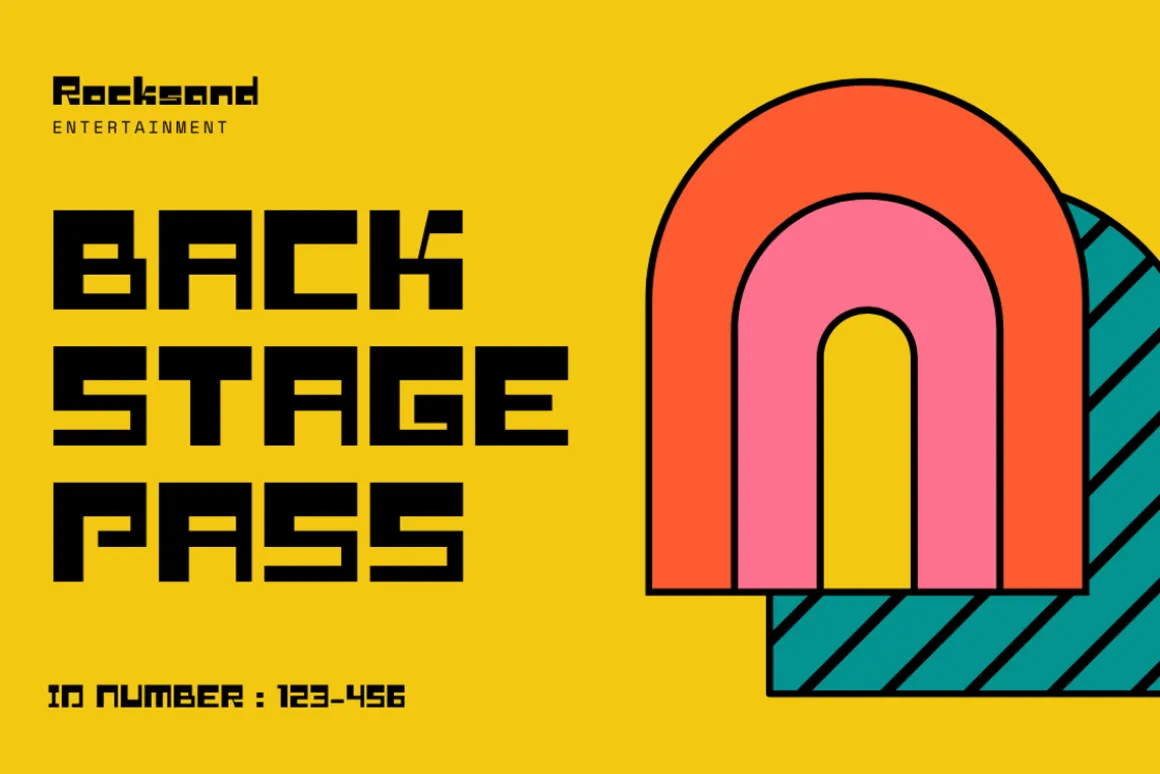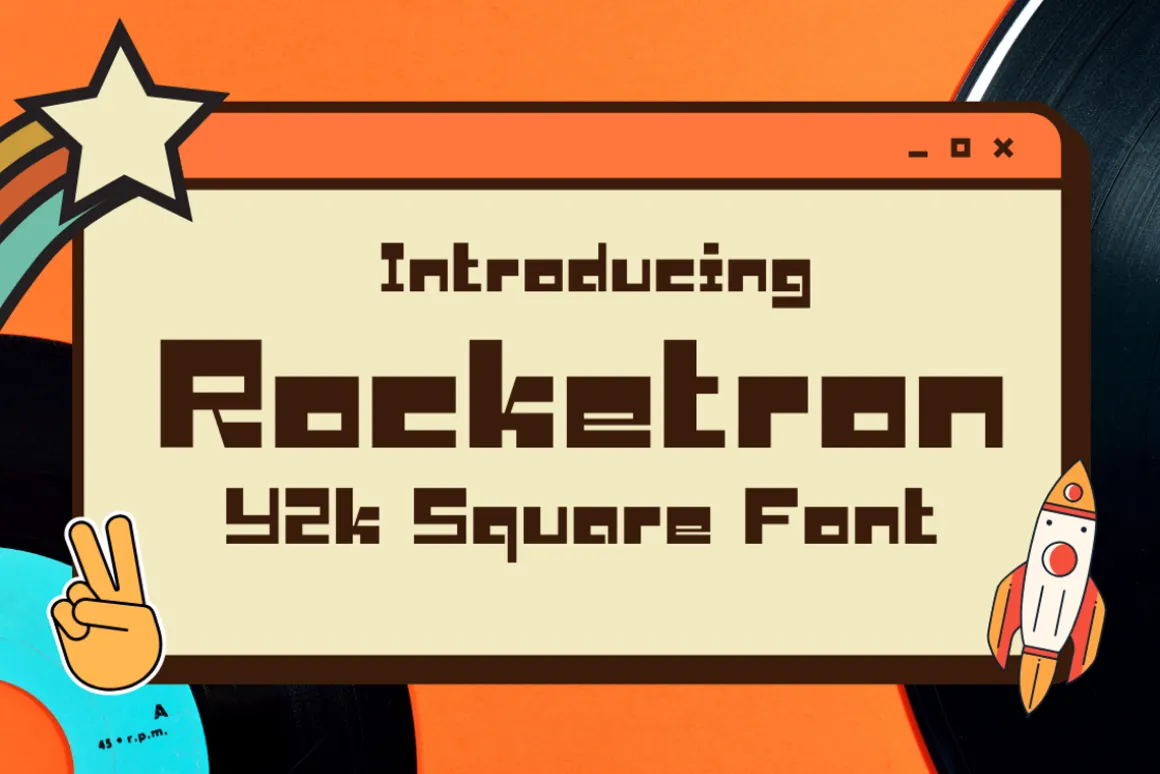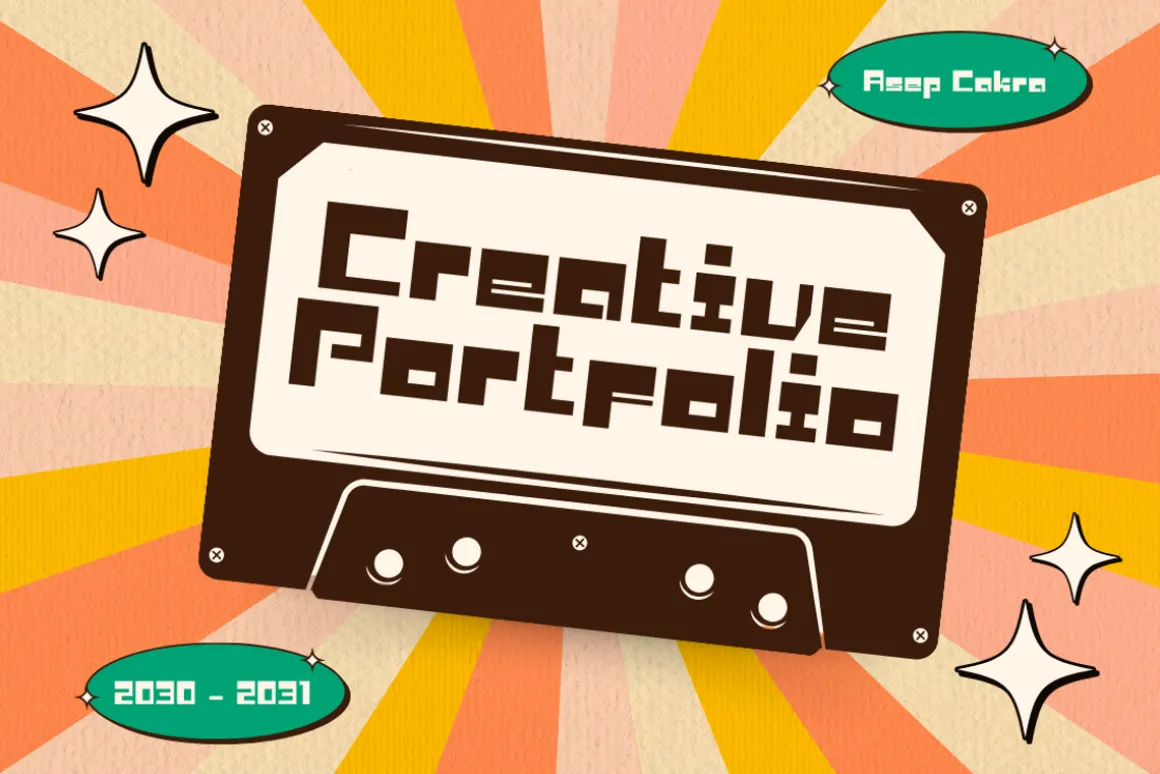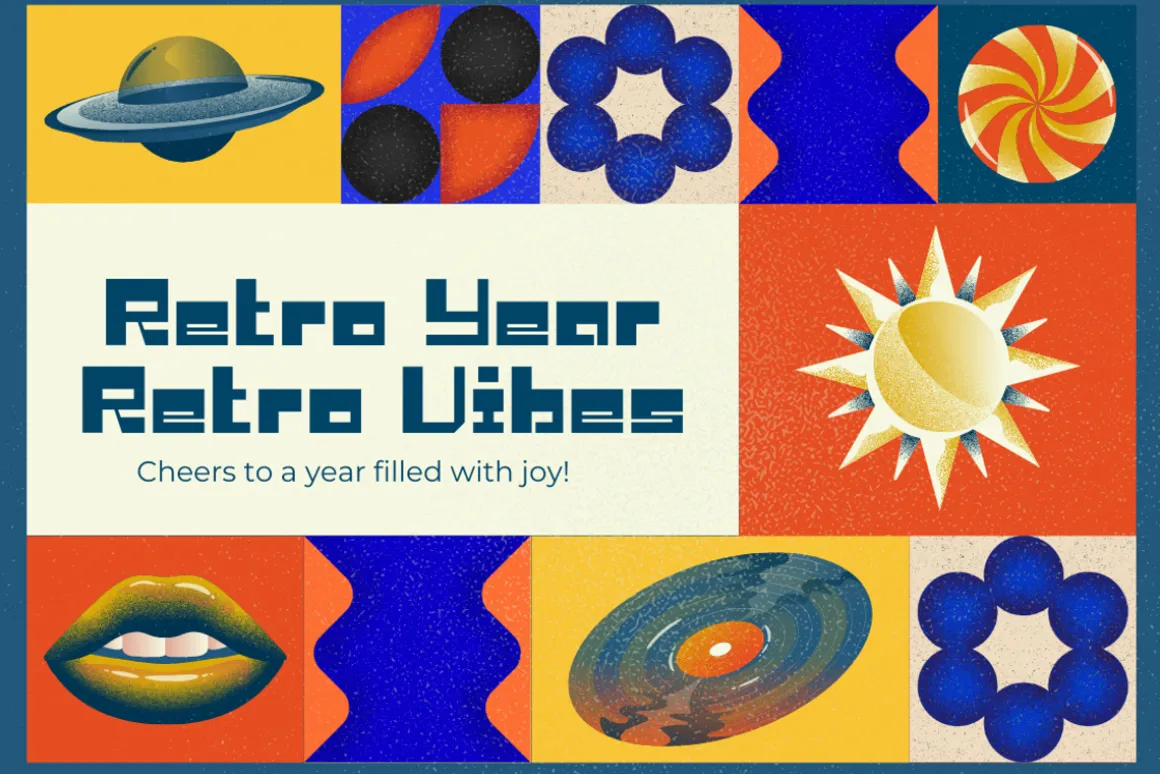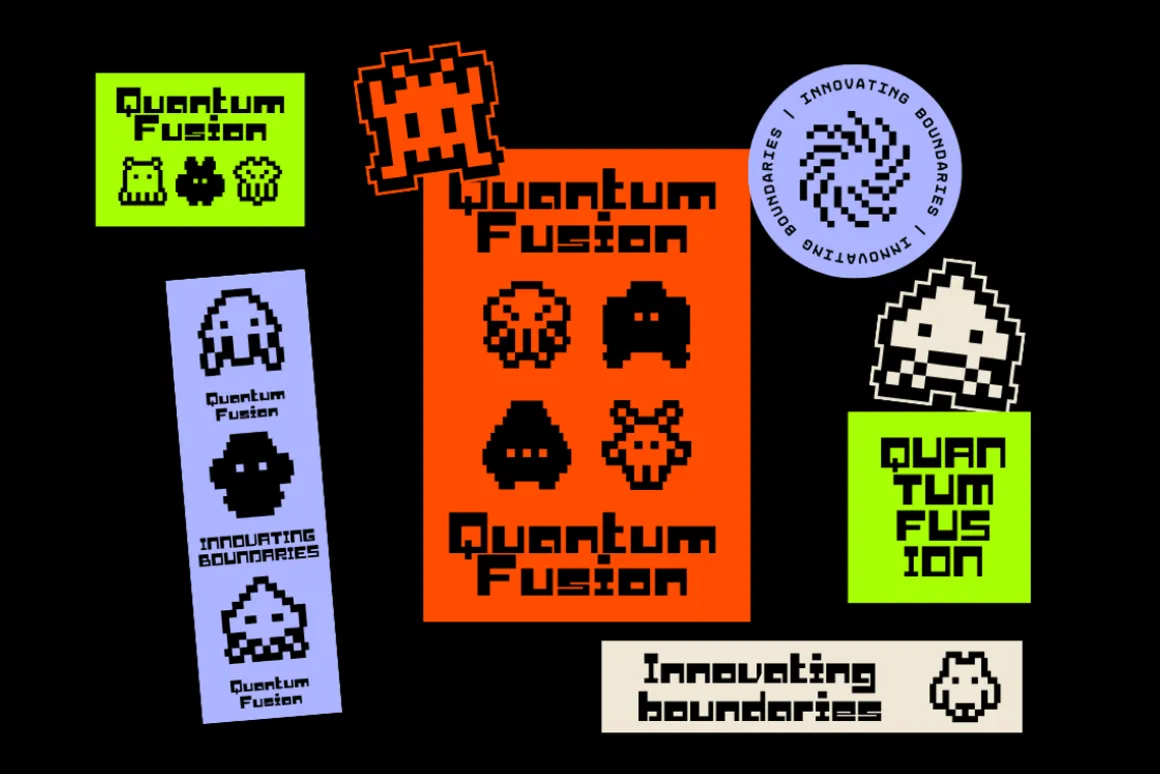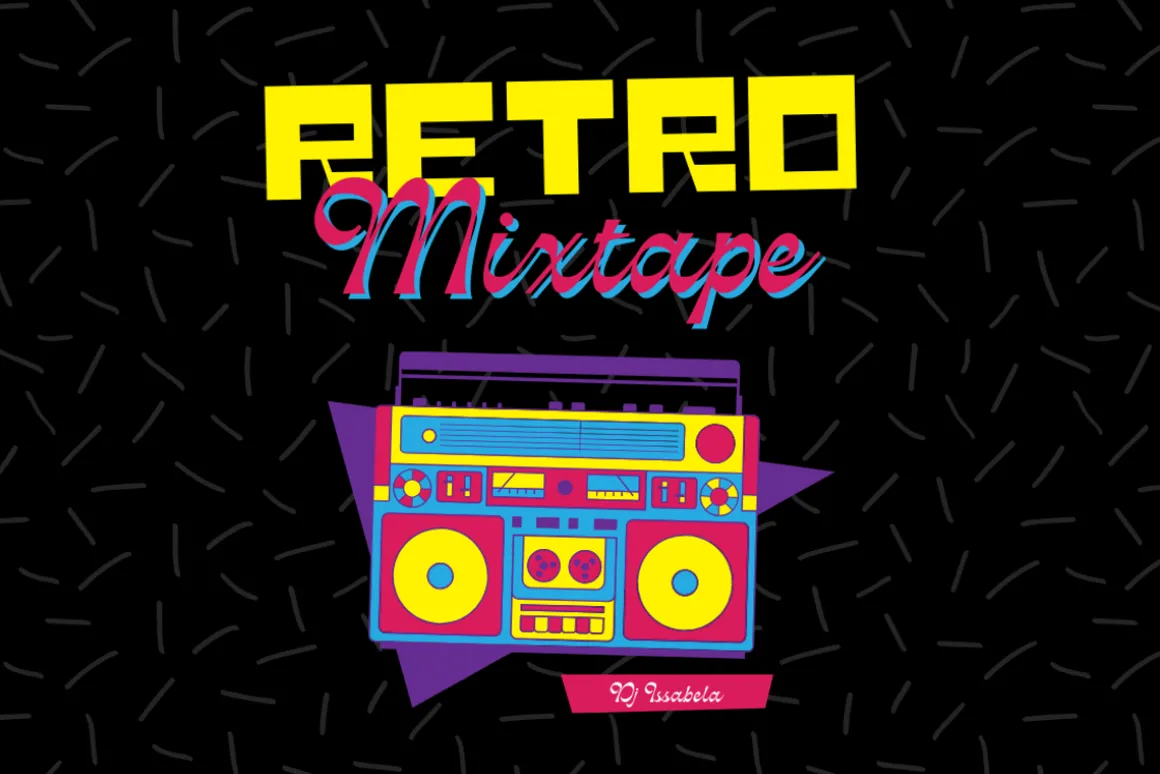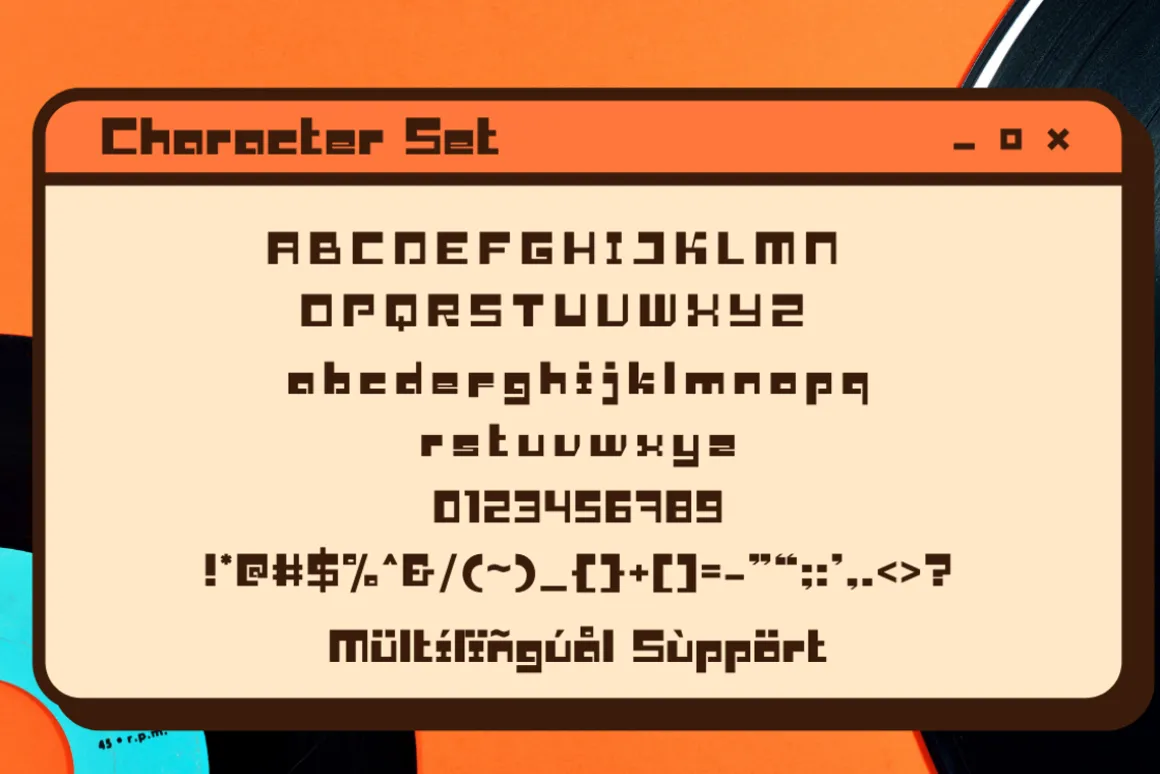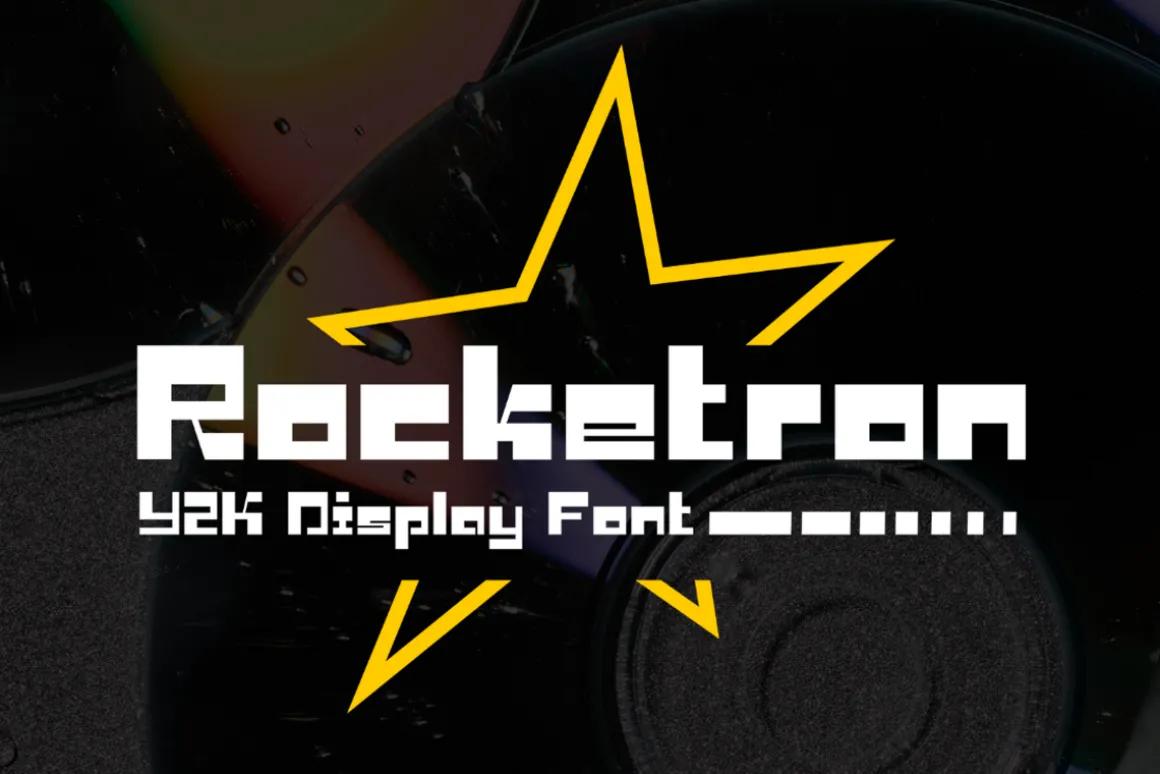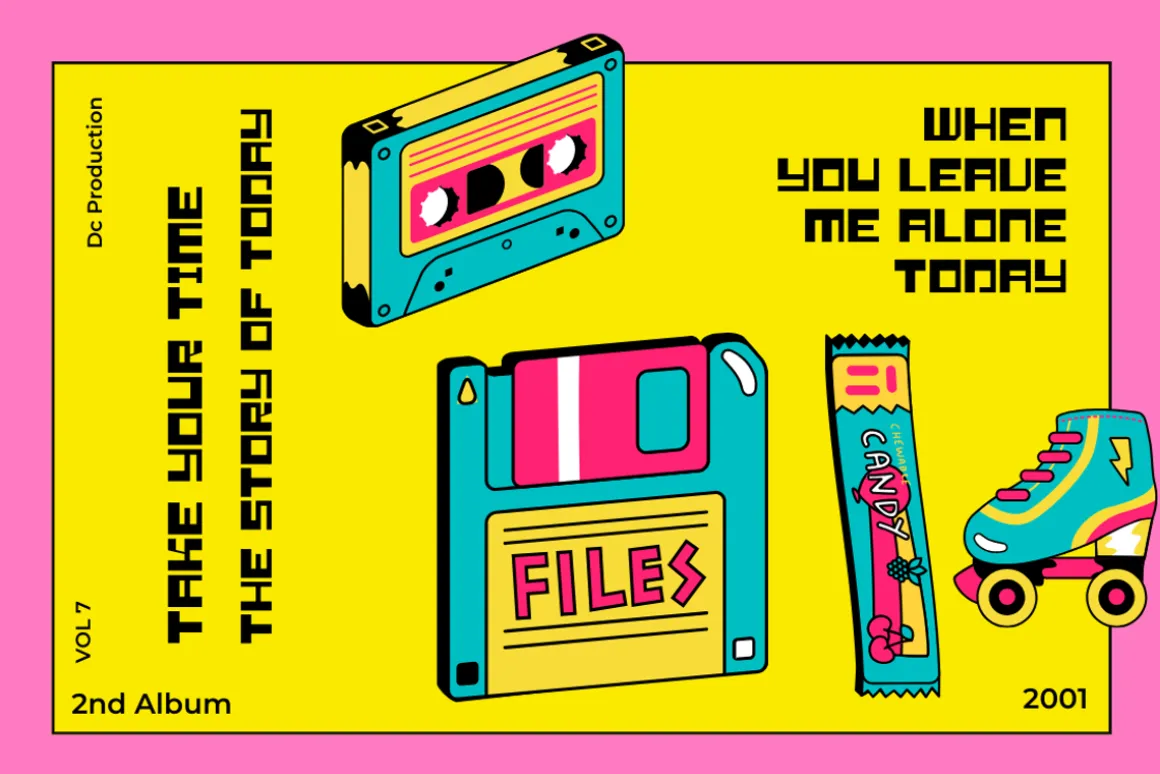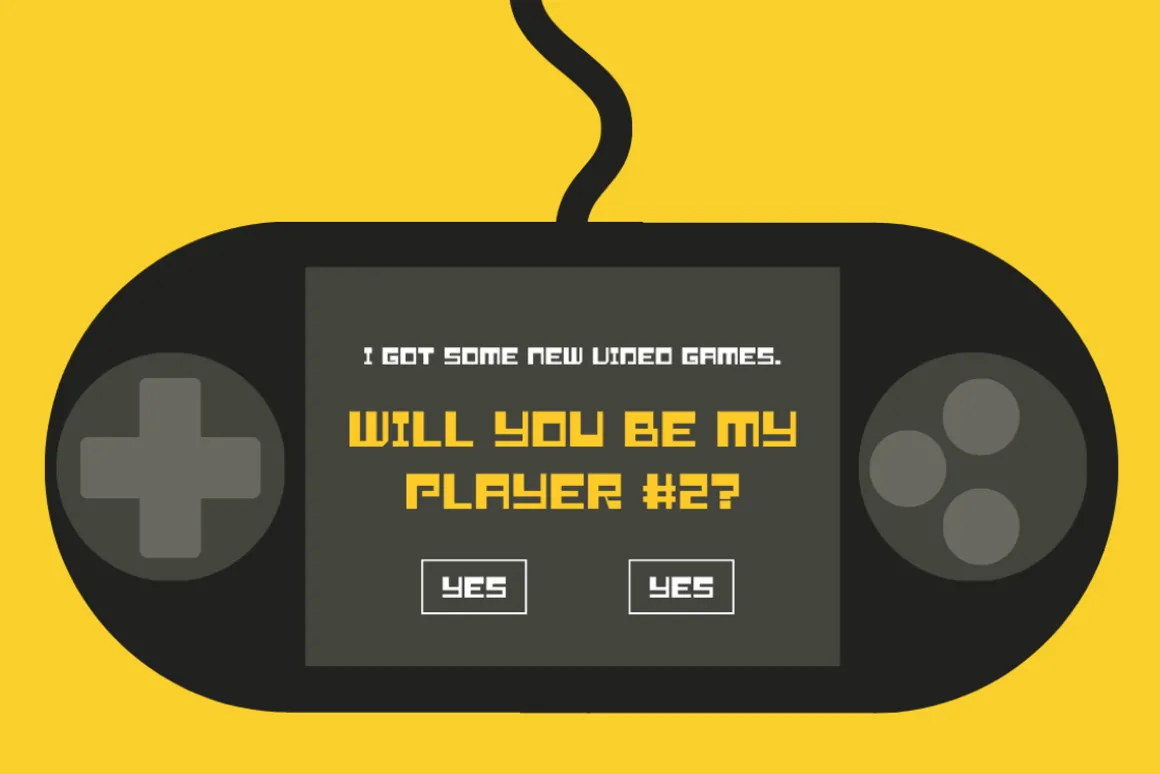
Introducing “Rocketron,” a font that takes you straight back to the Y2K era with its retro, square design. Inspired by the aesthetics of the early 2000s, this font exudes nostalgia and futuristic vibes. Perfect for capturing the essence of that iconic era in your designs, whether it’s for posters, branding, or digital artwork. “Rocketron” adds a touch of retro charm and geometric flair to your text, making it stand out with a cool and vintage-inspired look.